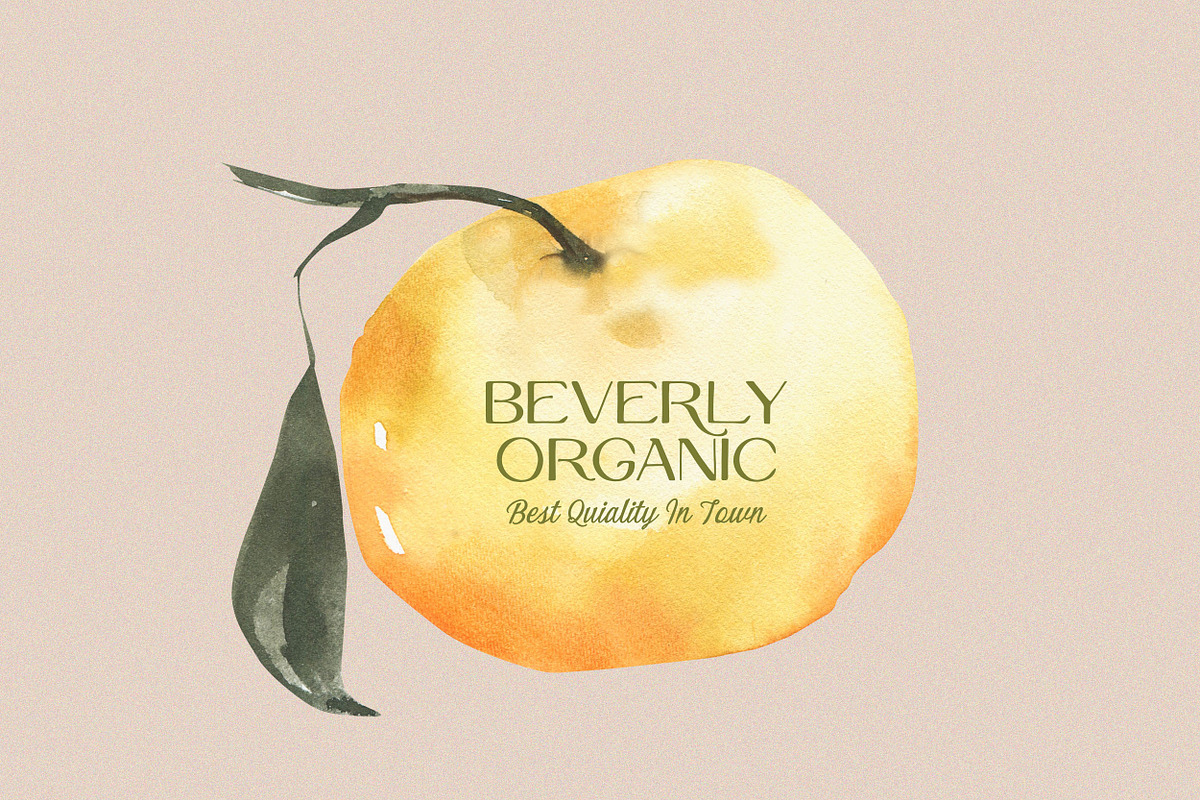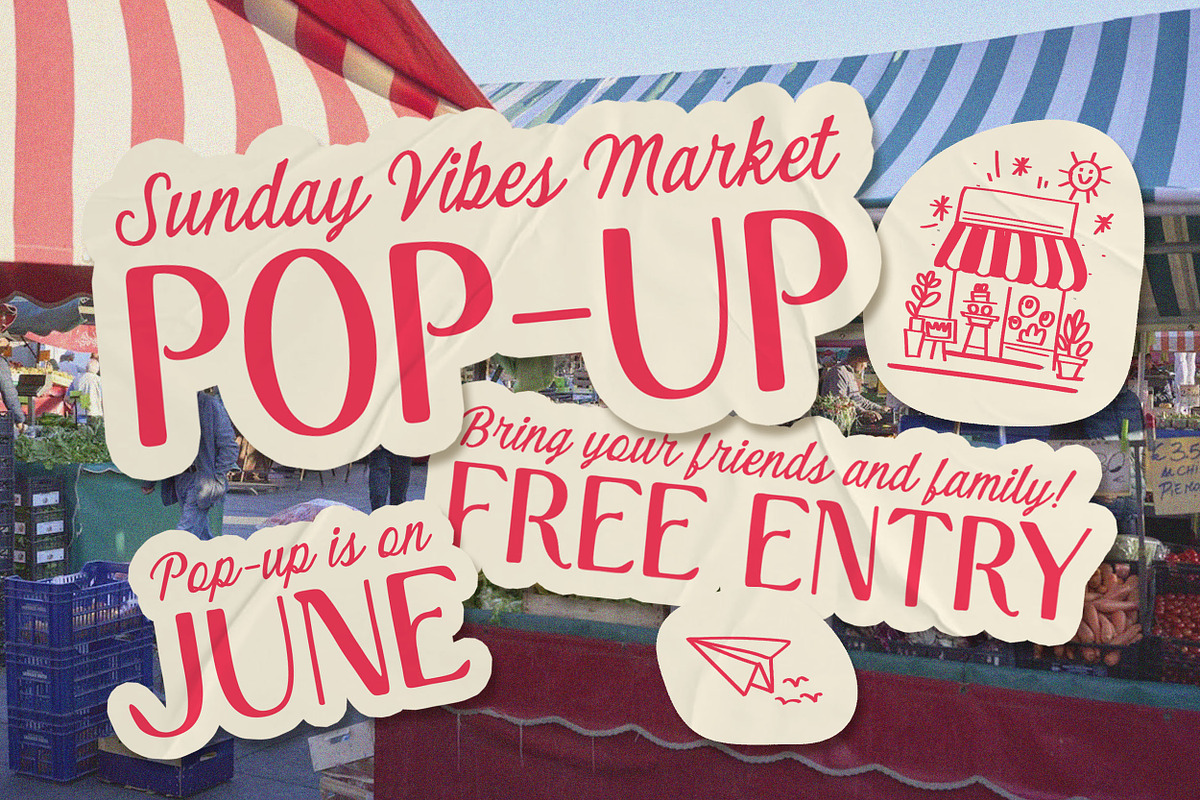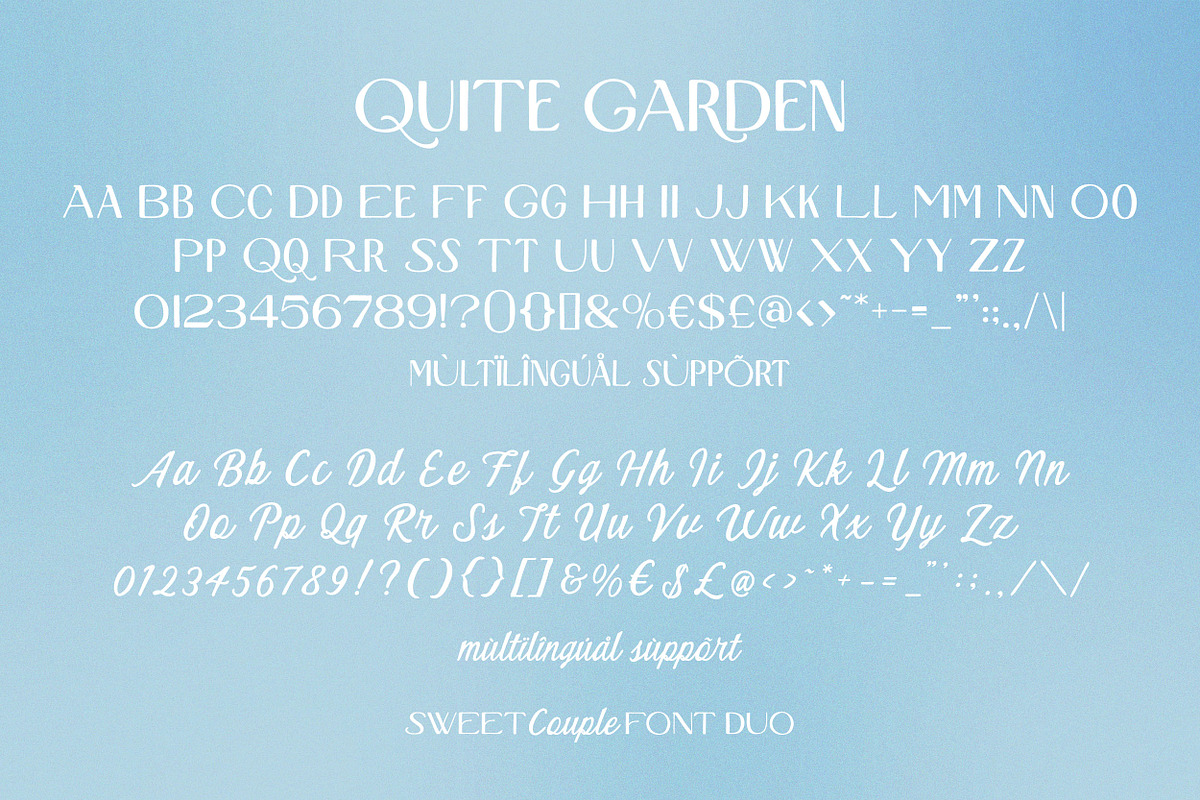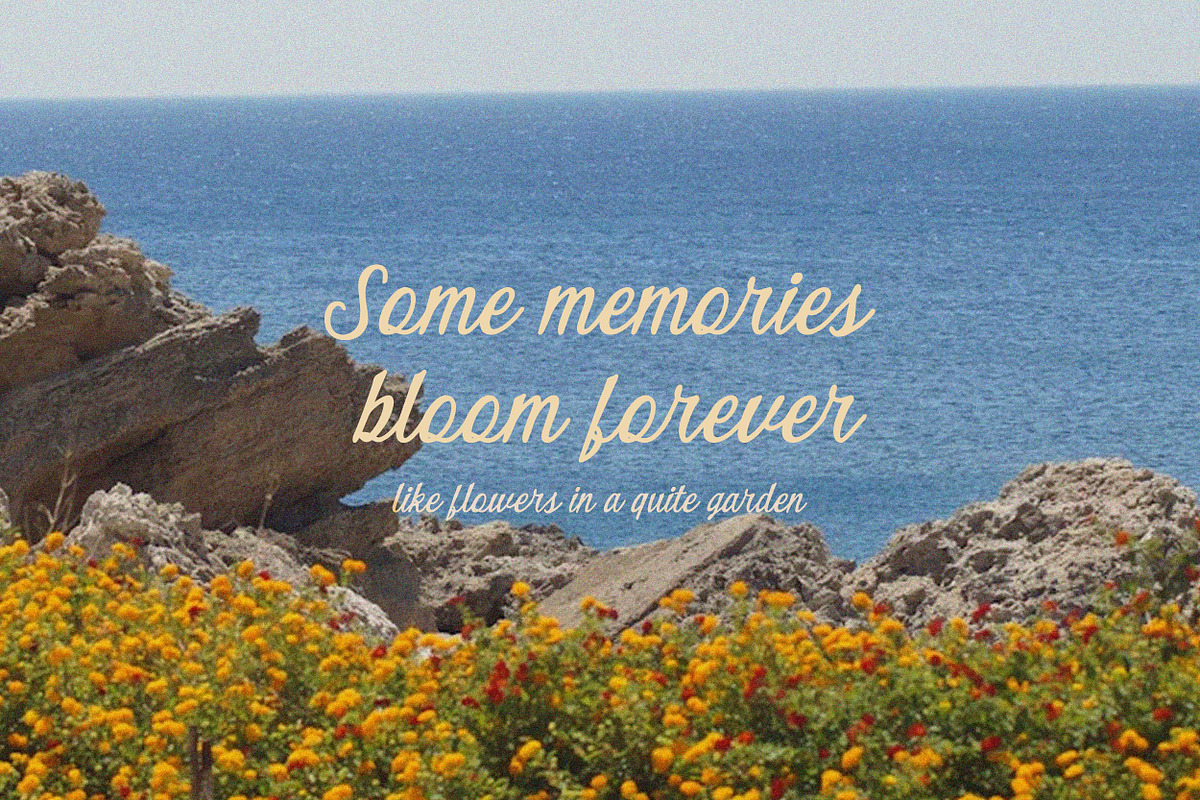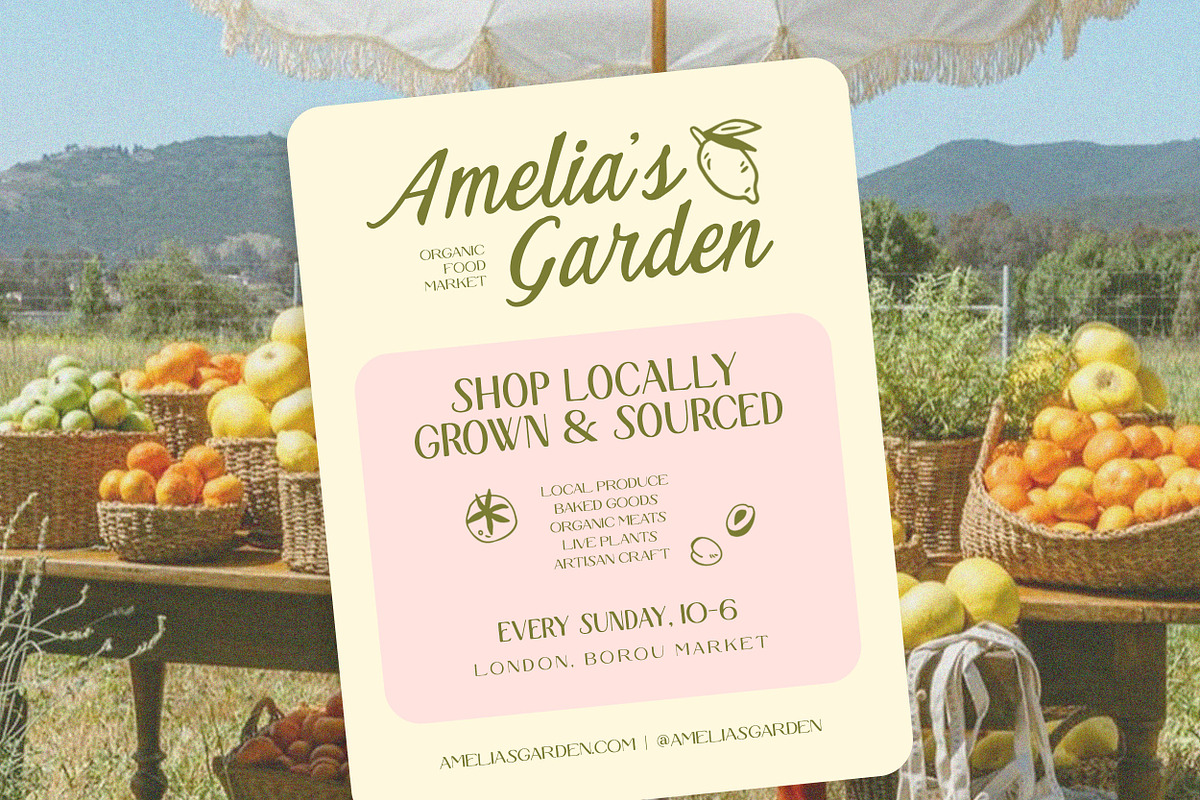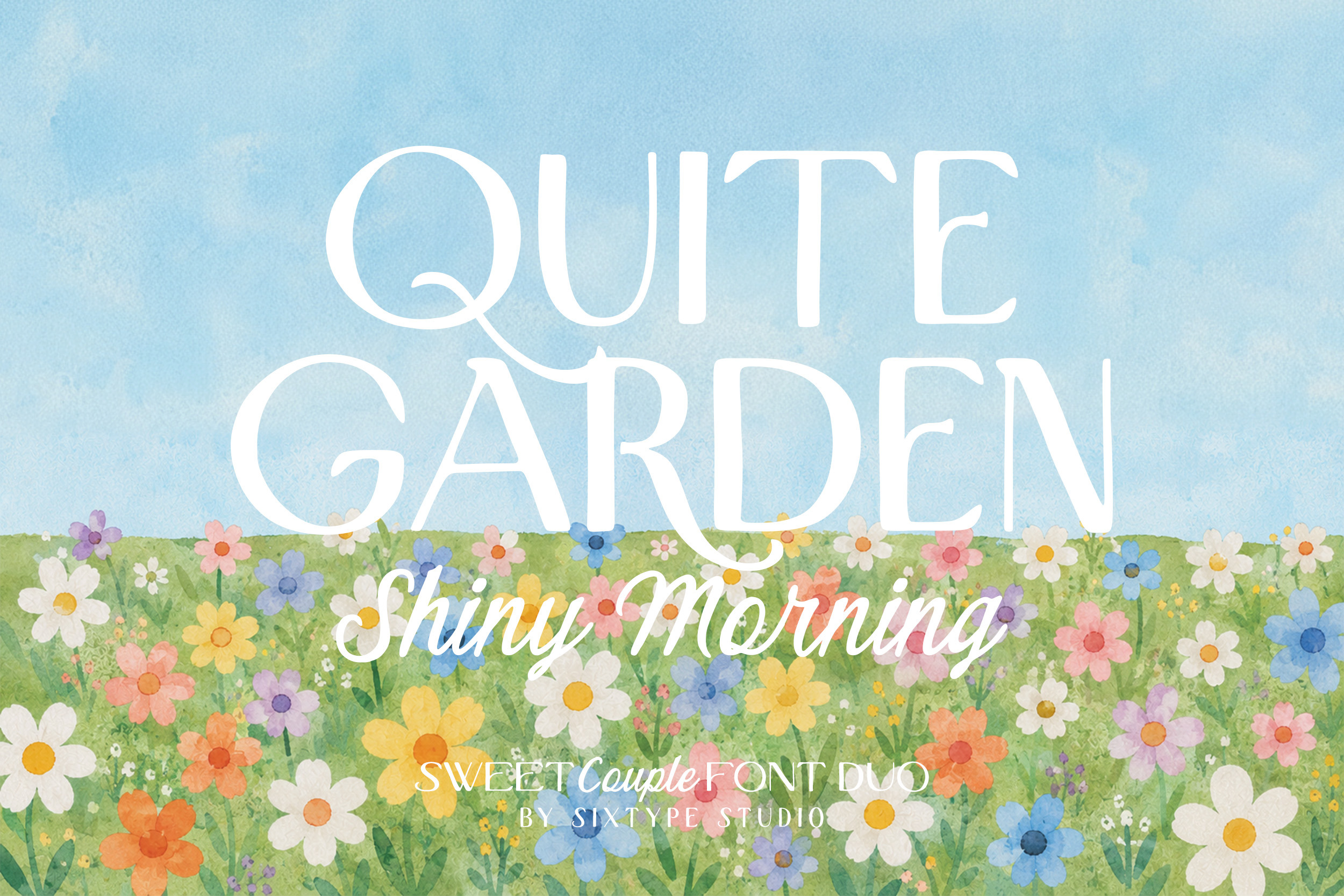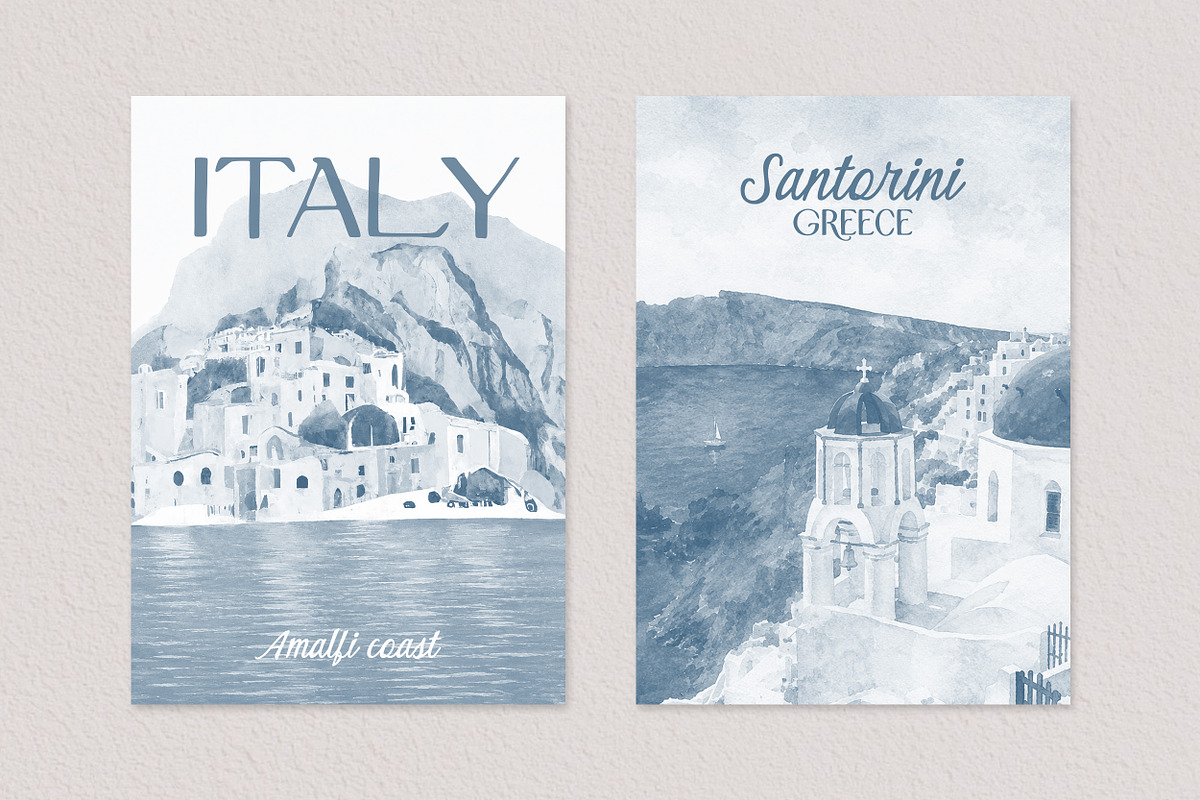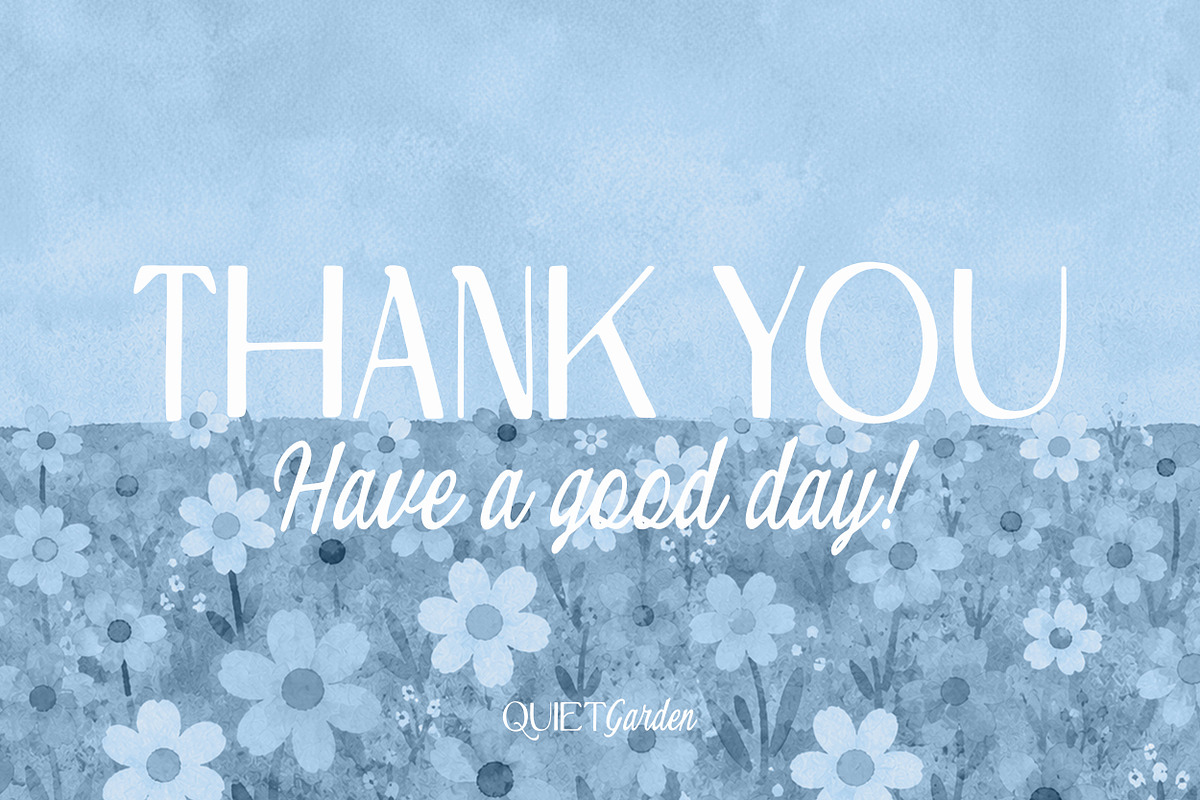
Quiet Garden Font Duo Retro Whimsy
Quiet Garden is a script and sans serif duo, built as a companion pair for projects that want a soft, handwritten accent balanced by a clean, readable partner. The script carries loose, connected strokes with a relaxed forward lean and gentle loops through the ascenders and descenders, the kind of cursive you'd find on a hand-lettered invitation rather than a formal calligraphy piece. Its companion sans keeps things grounded, rounded terminals, even spacing, and a friendly, consistent stroke weight that reads clearly at small sizes.
What sets the script apart is its restraint. The letters connect at an easy, unhurried pace without tipping into heavy flourishes, so a full word or phrase stays legible instead of collapsing into loops. Paired with the sans, the duo gives a project two distinct voices from one hand: a warm, handwritten accent and a steady, structural counterpart.
Picture the script looping across the top of a wedding invitation or curling through a floral logo mark, with the sans handling the address line or ingredient list underneath. That contrast, expressive header, quiet body copy, is where this pairing does its best work.
Quiet Garden suits wedding invitations and stationery, floral and boutique branding, greeting cards, packaging labels, logo lockups, and social media graphics. The sans half also holds up on its own for straightforward headline or body copy use where the script would be too much.